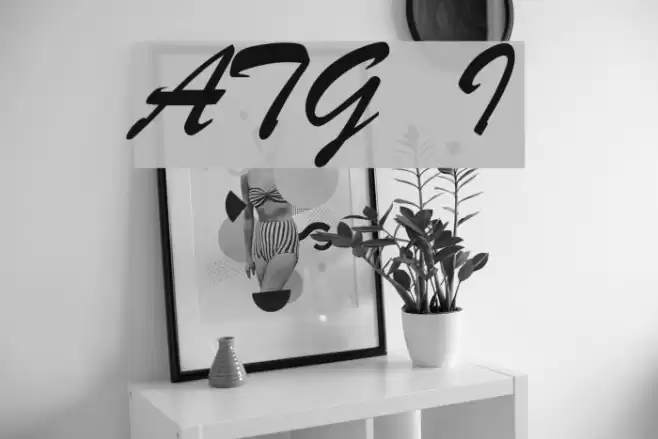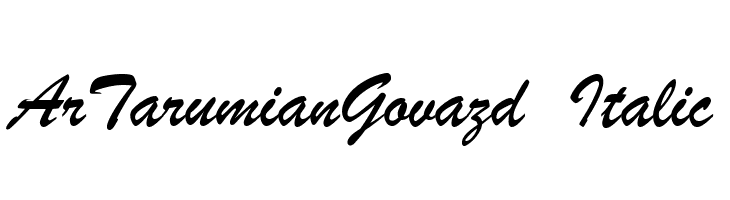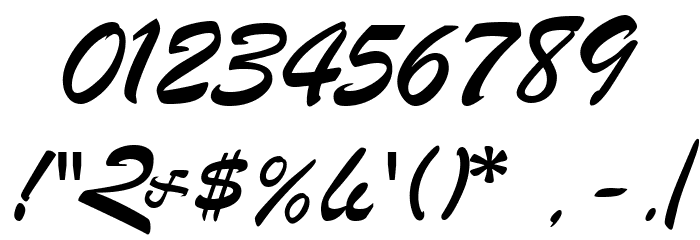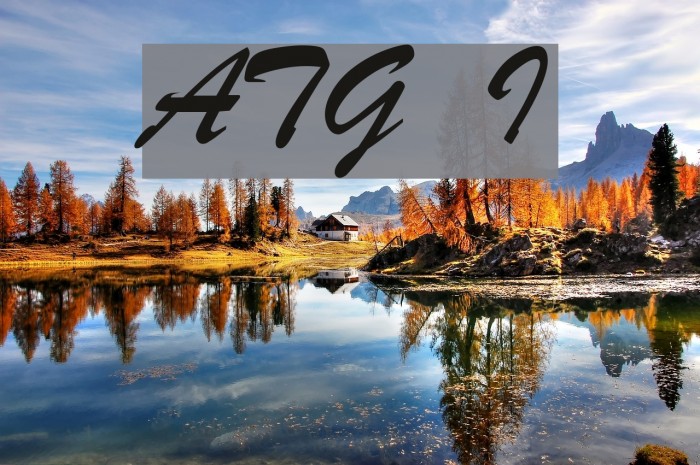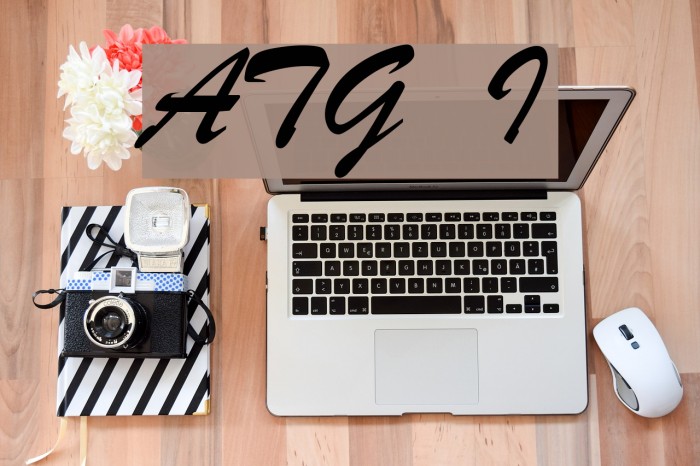
ArTarumianGovazd Italic Font
ArTarumianGovazd Italic Description
This font features a dynamic and flowing script style, characterized by its italicized and cursive appearance. The letters are interconnected, creating a sense of movement and elegance. The strokes are bold and expressive, with a consistent slant that enhances the cursive effect. The uppercase letters are distinguished by their elaborate loops and swashes, while the lowercase letters maintain a more restrained yet fluid form. The numerals and special characters are designed to match the overall script style, ensuring a cohesive look across all elements. This font's boldness and flair make it suitable for projects that require a touch of sophistication and creativity.
A bold, italic script font with flowing, interconnected letters and expressive strokes from Script fonts.
- Proposed Projects: Ideal for wedding invitations, elegant branding, greeting cards, and artistic posters.
- Italic: Yes
- Character Spacing: Tight
- Overall Style: Decorative
- Use Case: Logos, Headlines, Invitations